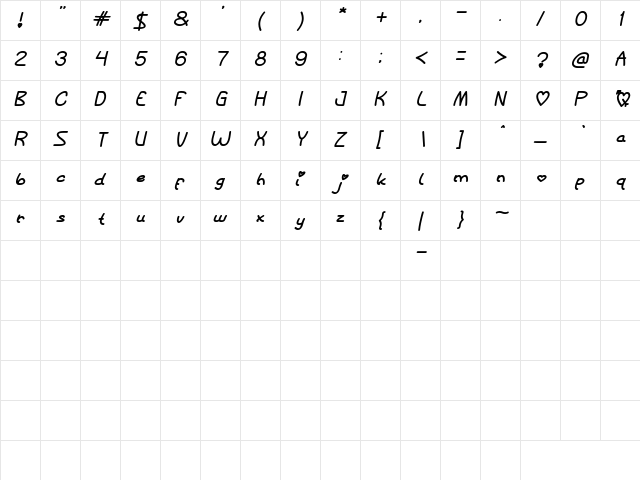
Queen of Love Cursiva
Design Context for Queen of Love Typeface
Queen of Love flows with the natural rhythm of handwritten lettering, making it ideal for designs that call for warmth and personal expression.